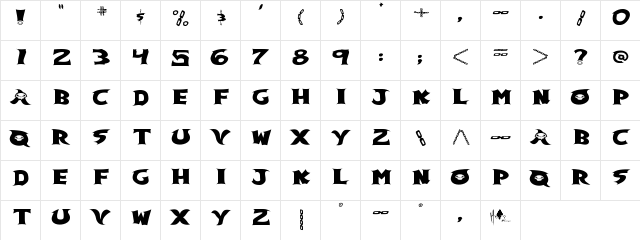
SpawnFont-Beta2 Regular
Design Context for SpawnFont-Beta2 Typeface
SpawnFont-Beta2 is a composed and adaptable typeface that performs quietly and consistently across a wide range of design contexts.